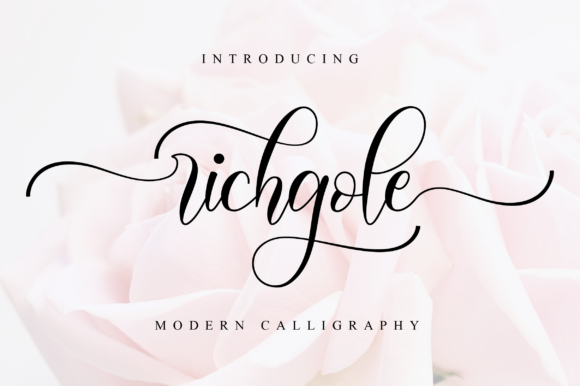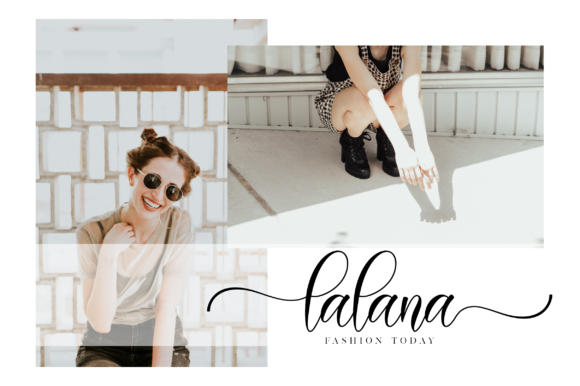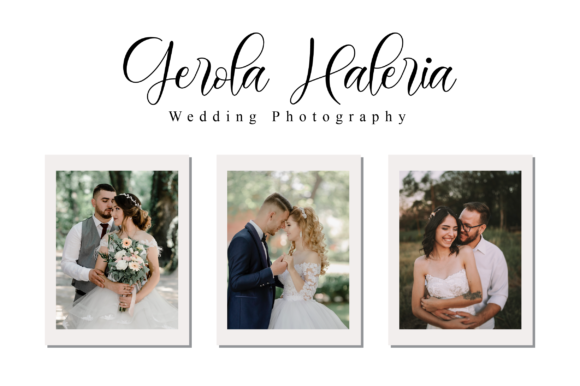
Richgole Font
Richgole is stunning and enchanting, but also incredibly modern. This versatile script font has a wide range of applications ranging from greeting cards to headlines and is guaranteed to add a romantic feel to your next project.